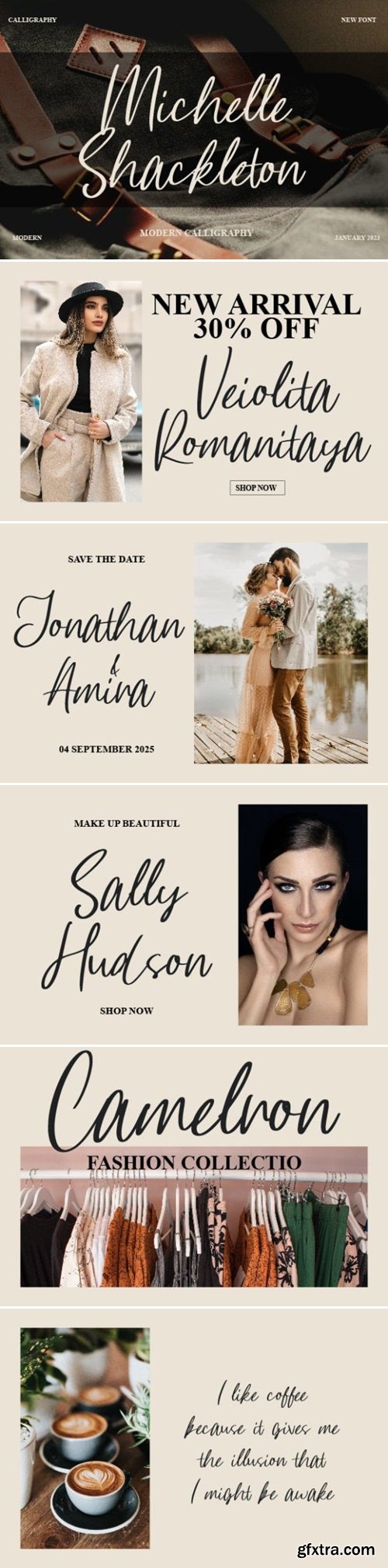
Michelle Shackleton Font
Michelle Shackleton is an exquisite handwritten font, masterfully designed to become a true favorite. It maintains its classy calligraphic influences while feeling contemporary and fresh. Fall in love with it and bring your projects to the highest levels!